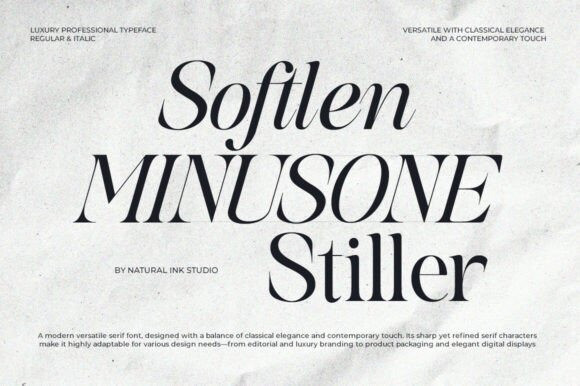
Softlen Minusone Stiller Font
Softlen Minusone Stiller Font is a versatile serif typeface crafted with a perfect balance of elegance and professionalism.
Softlen MINUSONE Stiller is a sophisticated and modern serif typeface that effortlessly balances classical elegance with a sharp, contemporary edge. This luxurious font is characterized by its dramatic contrast between thick and thin strokes and its beautifully refined, sweeping serifs, making it an exquisite choice for high-end design.
The Softlen MINUSONE Stiller typeface family includes both regular and italic styles, offering immense versatility for editorial layouts and premium branding. Its delicate yet striking glyphs make the Softlen MINUSONE Stiller font ideal for fashion magazines, upscale product packaging, and luxury logos. This highly professional serif promises a versatile and prestigious aesthetic for elegant digital displays.
Its refined letterforms blend timeless editorial charm with a contemporary touch, making it suitable for both print and digital media. The sharp yet graceful serifs convey authority and sophistication, while the smooth curves add warmth and readability. Ideal for magazines, branding, and corporate communication.
Softlen Minusone Stiller adapts effortlessly across layouts—whether as striking headlines or refined body text—providing designers with a reliable choice for projects that demand both style and substance.
Softlen Minusone Stiller also comes with several unique alternates and ligatures, as well as multilingual support features that can make your project more attractive.